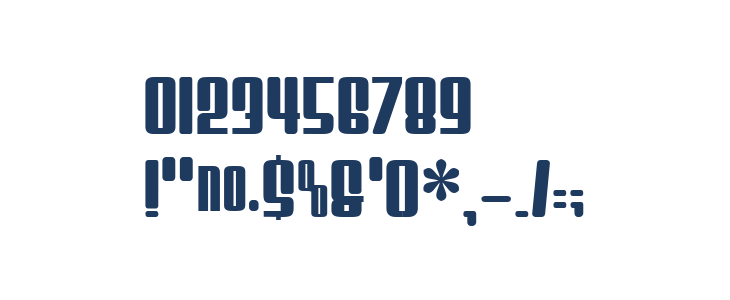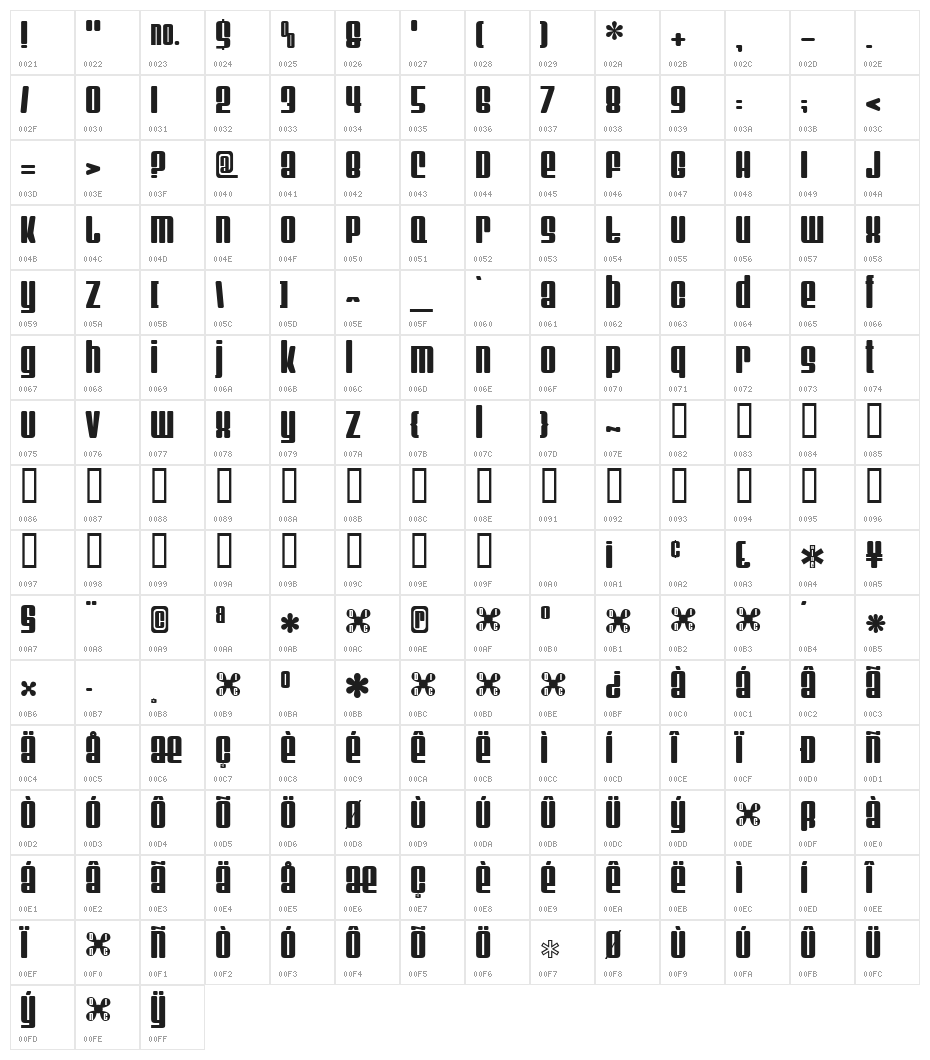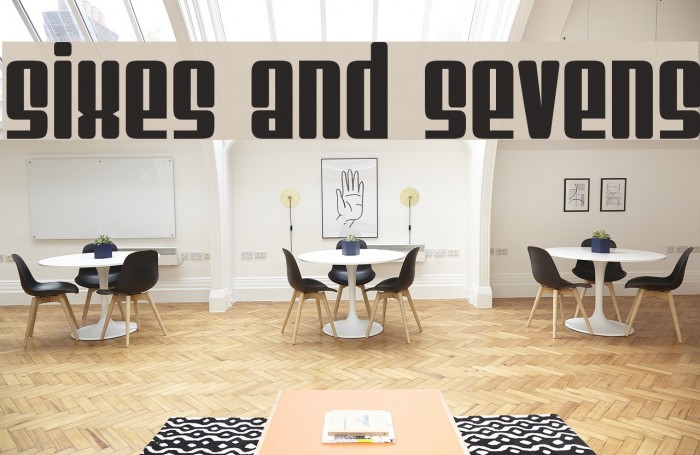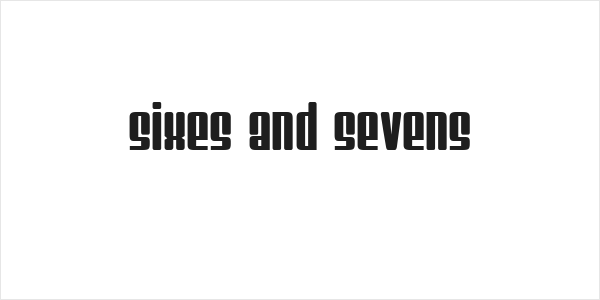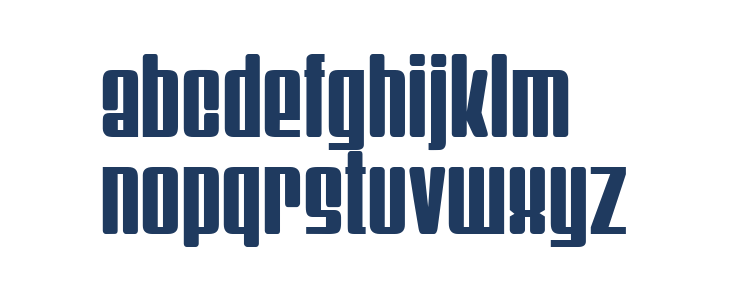
Sixes And Sevens Font
Sixes And Sevens Description
This font features a bold, geometric design with a strong presence. The characters are uniformly thick, giving it a robust and impactful appearance. The uppercase and lowercase letters maintain a consistent height, contributing to a cohesive look. The numbers and special characters follow the same bold style, ensuring uniformity across all glyphs. The font's design is modern and slightly condensed, making it suitable for attention-grabbing headlines and titles. Its clean lines and lack of serifs give it a contemporary feel, while the bold weight adds a sense of authority and emphasis.